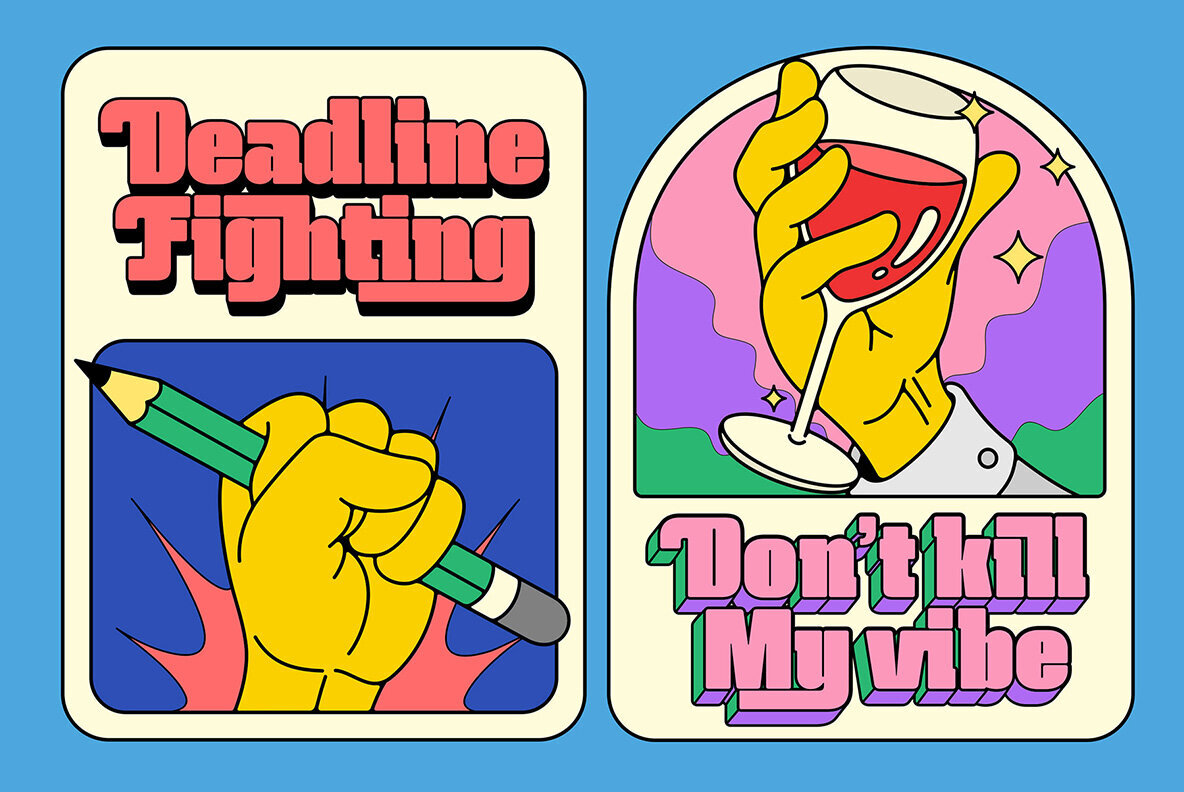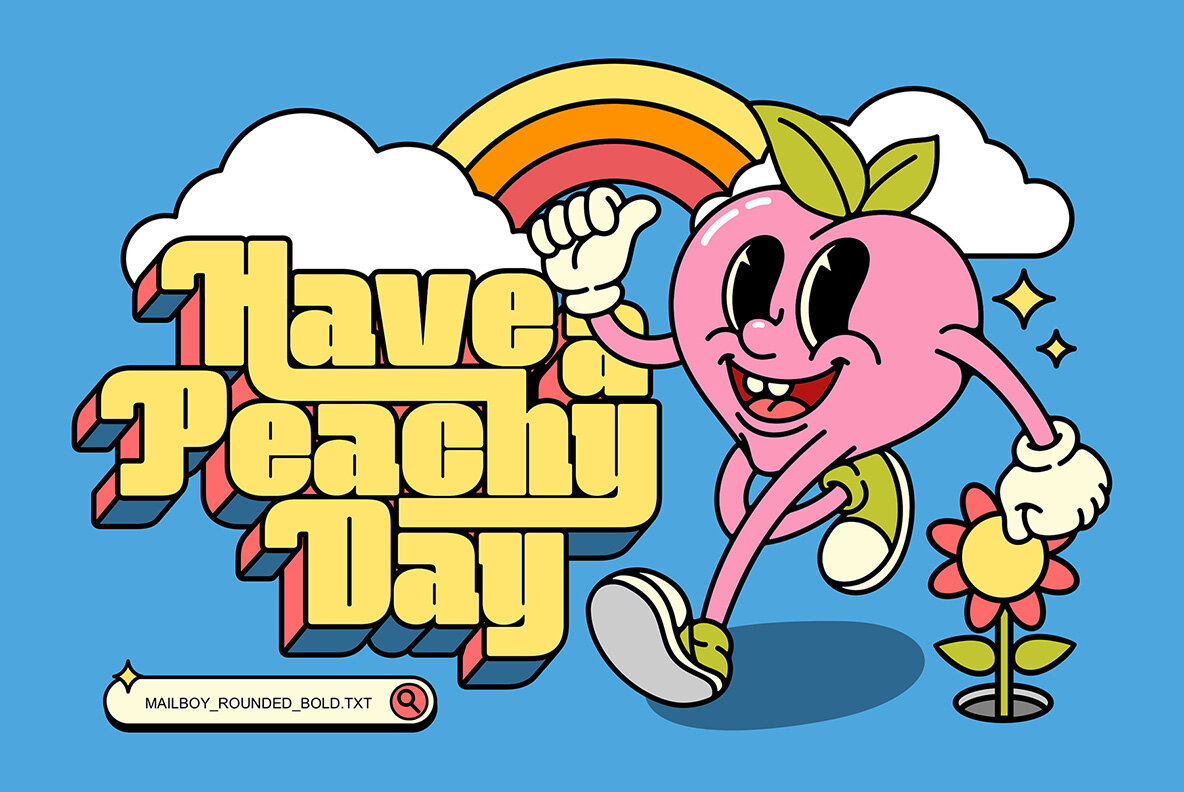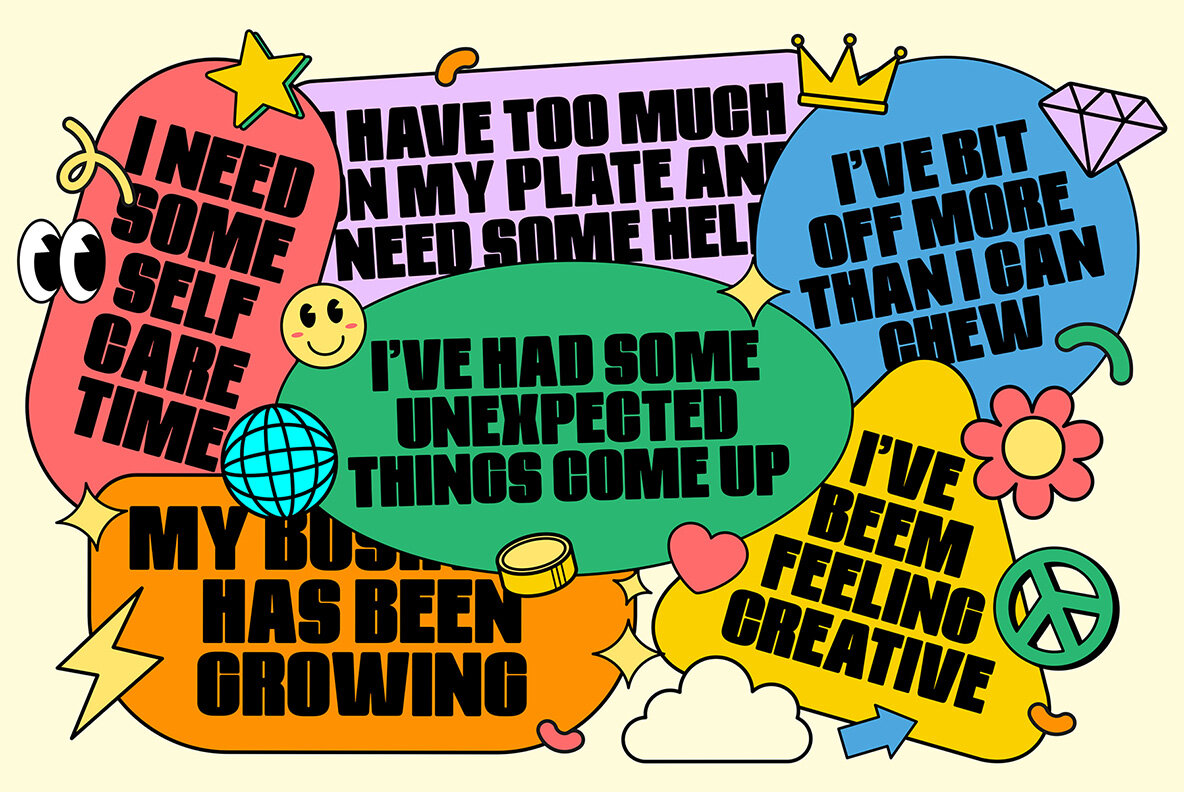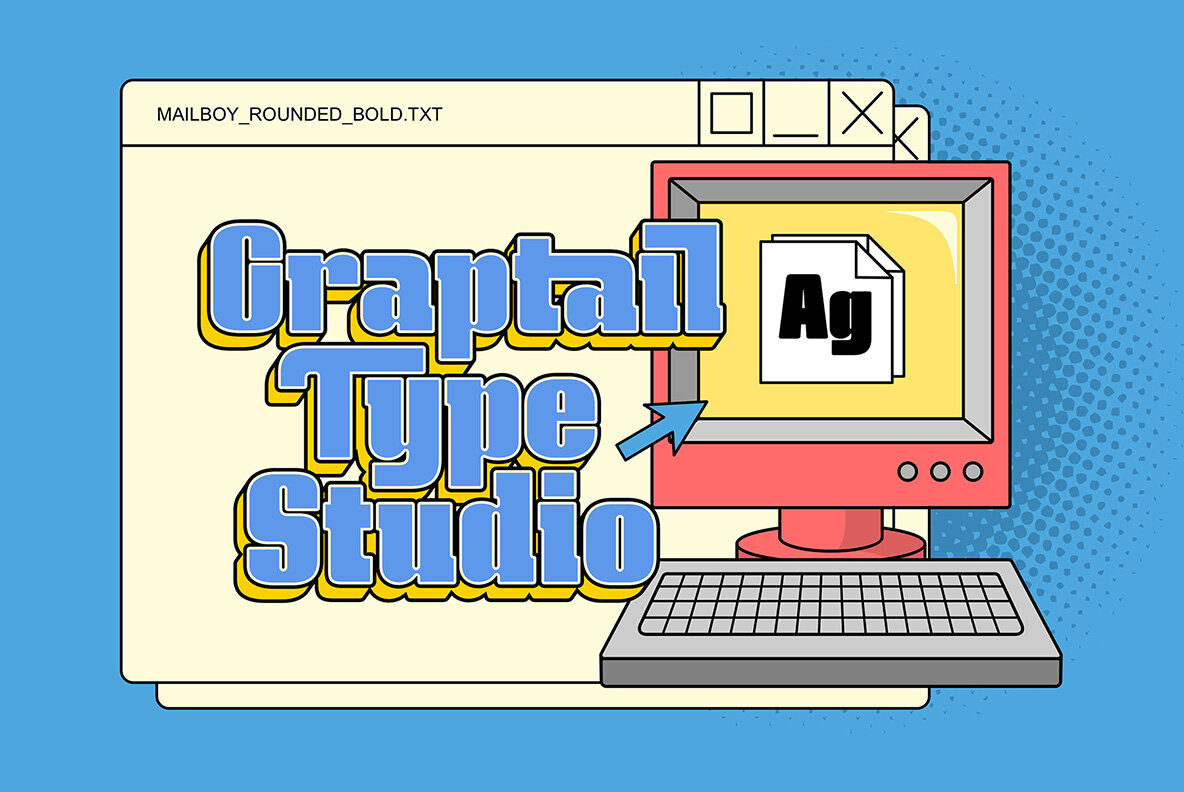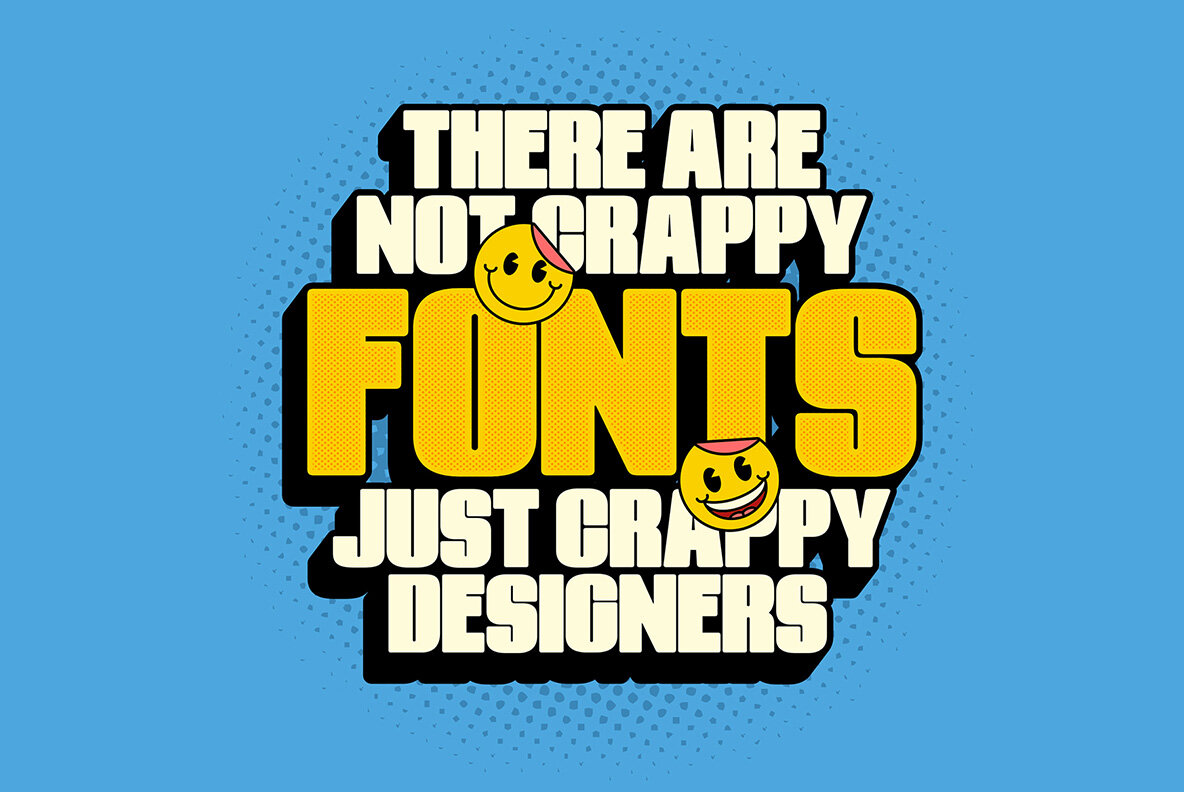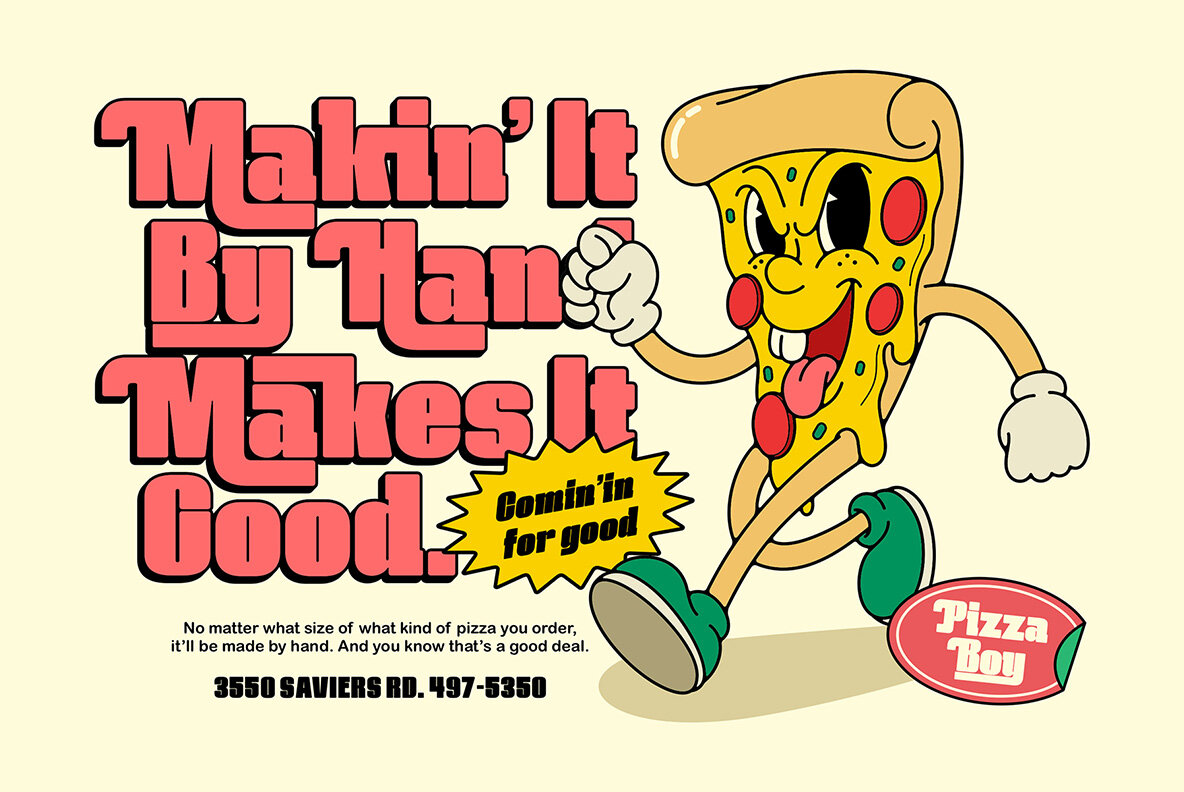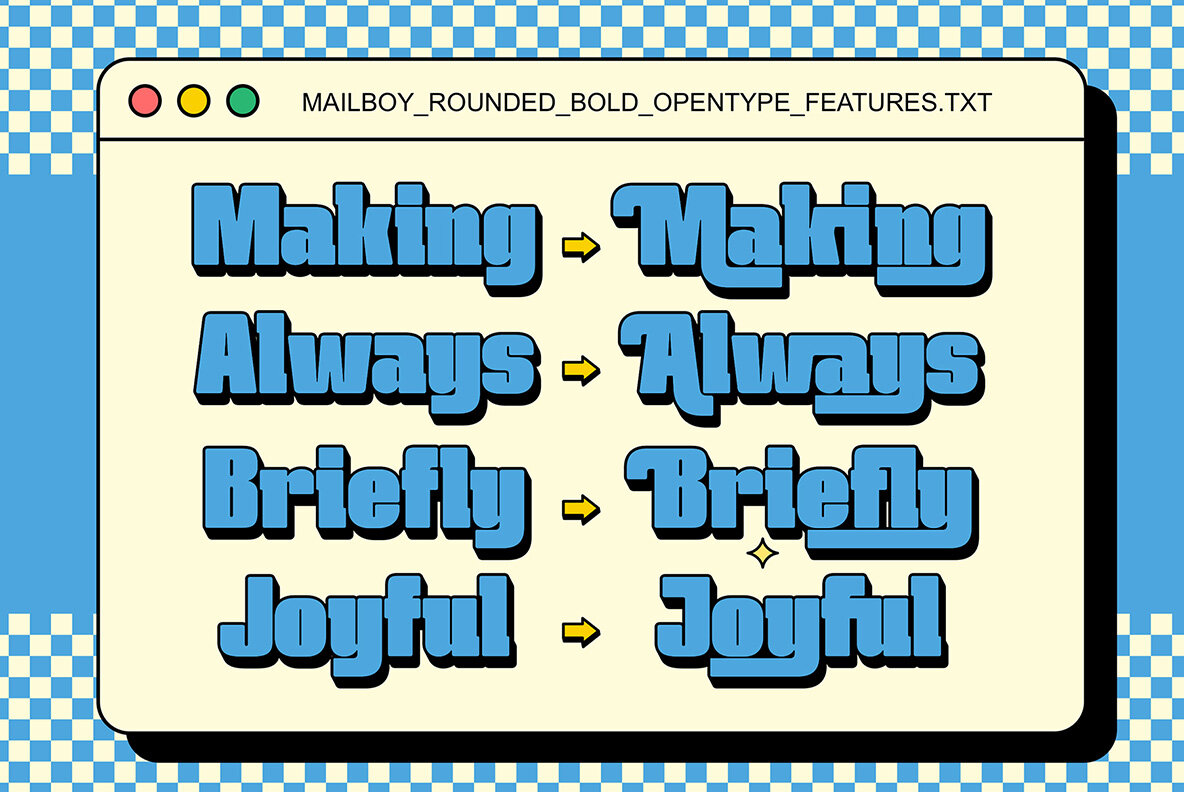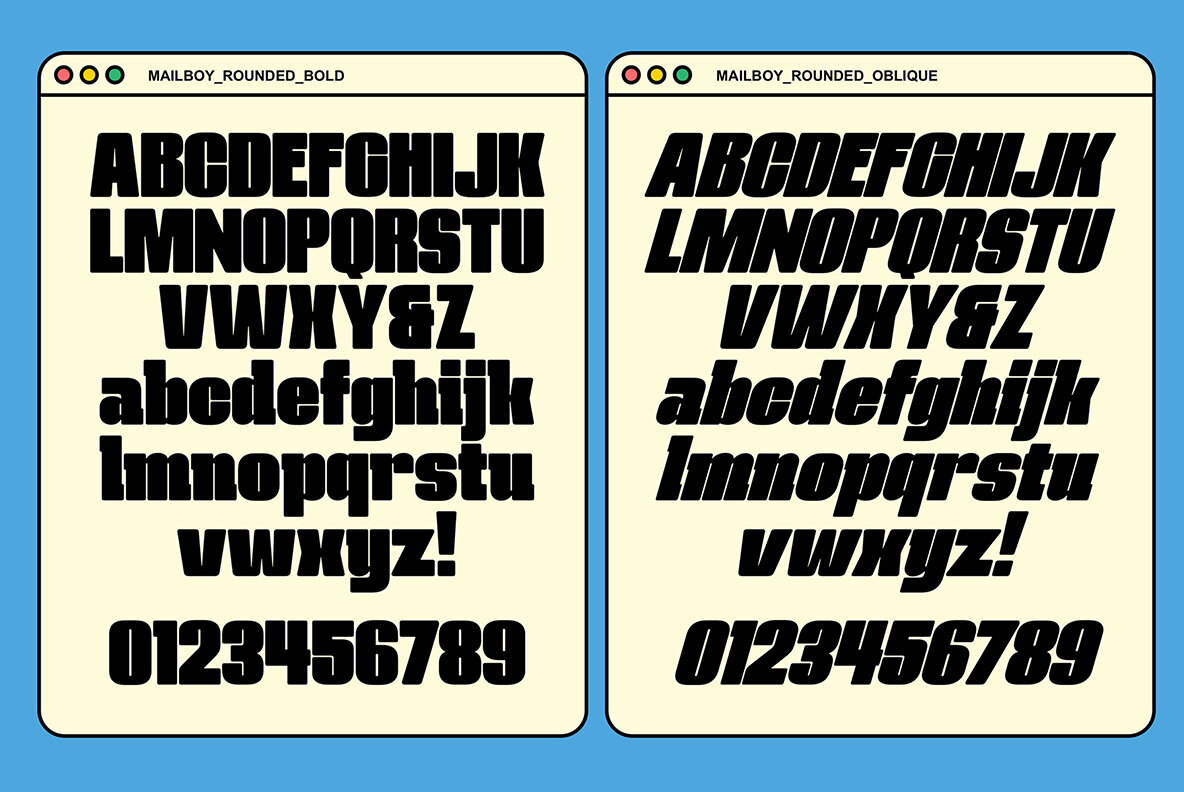
Mailboy Font
Mailboy, crafted with an eye for nostalgia, infuses your design projects with a chunky typeface that commands attention. This classic and timeless design hearkens back to simpler times, offering a striking statement perfect for logos, posters, and titles. Its vintage appeal brings an artistic edge that enhances the visual appeal of your text.Mailboy: Chunky Nostalgia with Artistic Flair